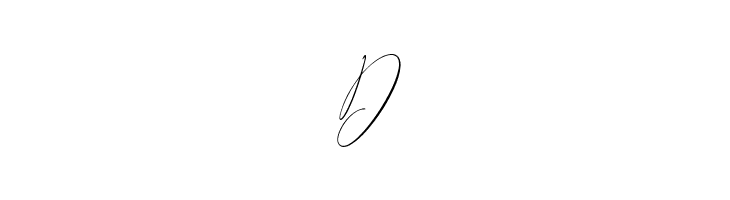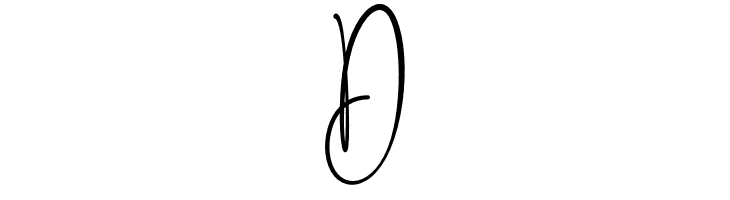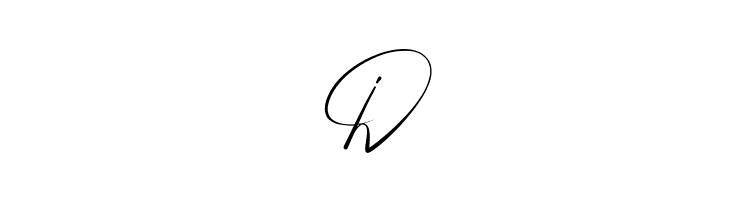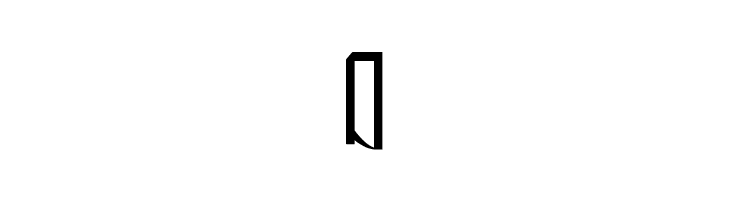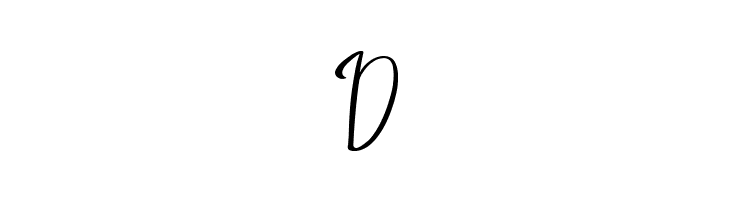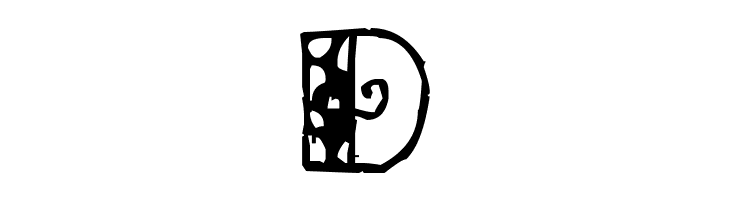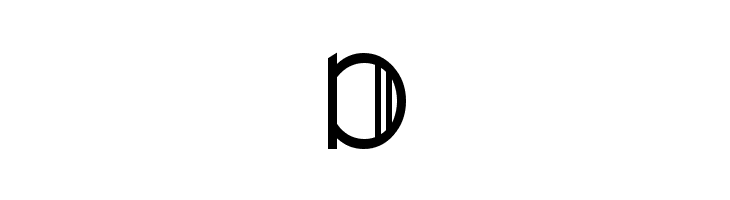
• Jadefedgah[8002]
A bold, distressed font with a cut-out, ransom note style.
• Jafrine Personal Use
A playful and artistic handwritten font with elegant loops and curves.
• Jailed Celts
• JailedCelts
• Jamaicafont
• Jameela
A graceful and flowing script font with elegant, fluid letterforms.
• Janelotus-Demo
An elegant and sophisticated script font with flowing, interconnected letterforms.
• Janetanice
A cursive, handwritten font with elegant, flowing strokes.
• Janji
A bold, geometric font with a strong, industrial style.
• Jantung
A bold, geometric font with sharp angles and a modern, futuristic style.